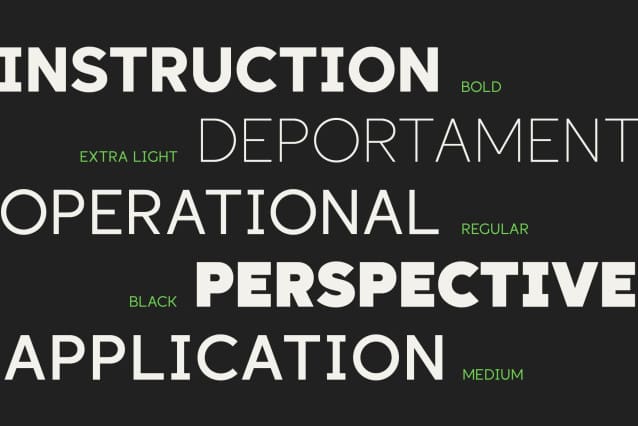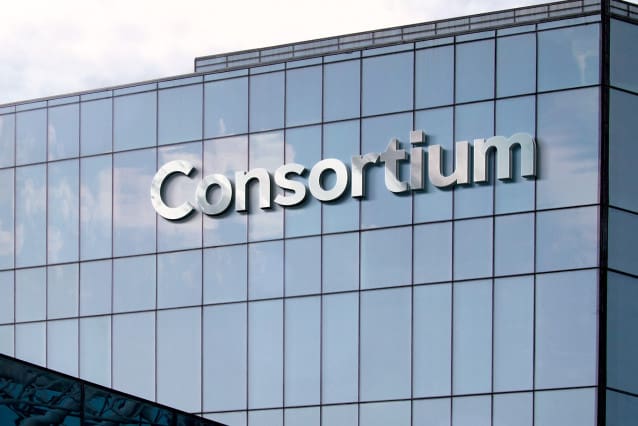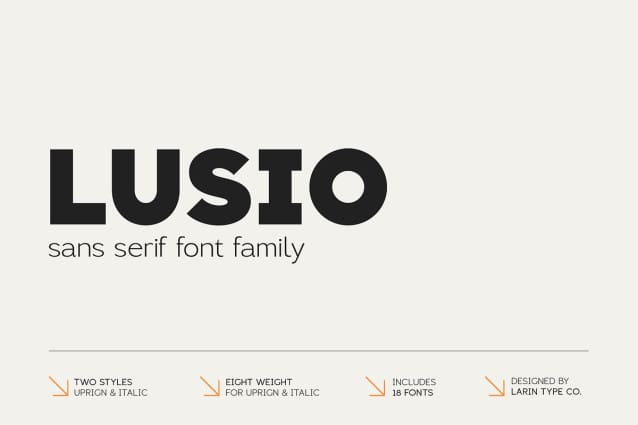
Lusio Font Family
Lusio Font Family, is a progressive grotesque with moderately open apertures, low visual contrast and high legibility. It includes 9 weights and italic to them from thin to black. It is versatile and suitable for a wide range of applications due to its practicality and conciseness. It works great with text in both small and large, whether it’s a title or a description, it will do an excellent job with this task.
With it, you can create logos, labels, use in advertising, packaging, branding, book covers and magazines, cosmetics, banners, posters, headings, descriptions and much more.
Following international symbols support: ÀÁÂÃÄÅĄÇĆÈÉÊËĘÌÍÎÏÐÑŃŁÒÓÔÕÖØÙÚÛÜŚŠŸÝŹŻŽßàáâãäåçèéêëìíîïðñòóôõöøùúûüýÿąćęłńśšźżž